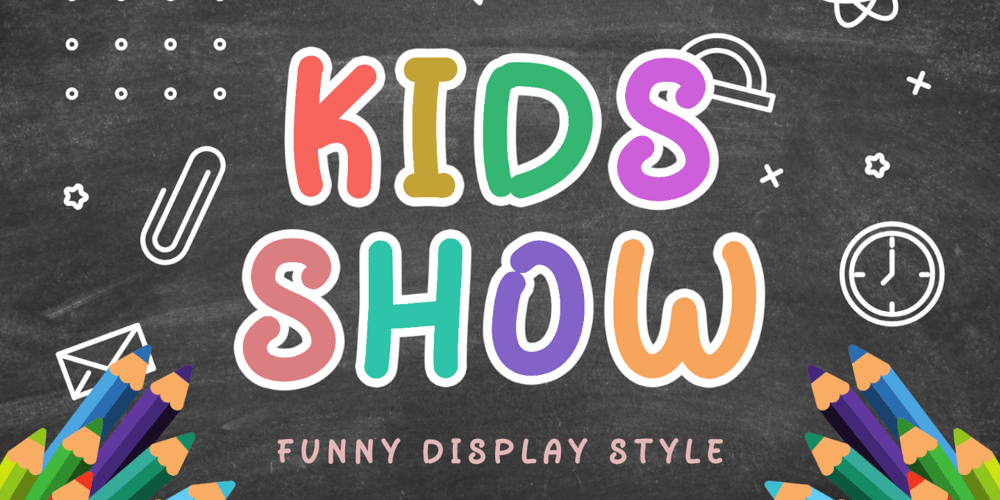
Kids Show
Kids Show font
Kids Show Font Family was designed by Isroni Yoga Prasetya and published by Yoga Letter. Kids Show contains 1 styles and family package options. “Child Family” is a unique cute display font. This font is equipped with uppercase, lowercase, numerals, punctuations and multilingual support. Very suitable for back to school, teacher, father’s day, Christmas, 4th of July, summer, logos, stickers, banners, posters, prints, branding, mugs and others.